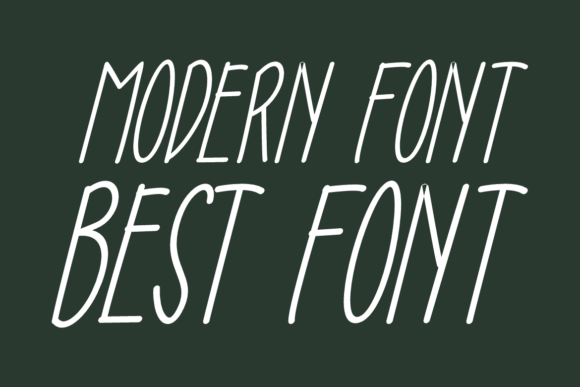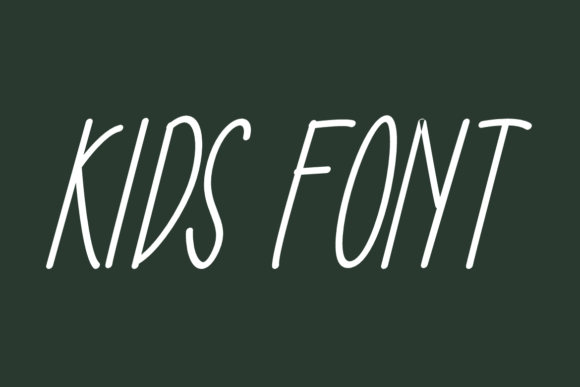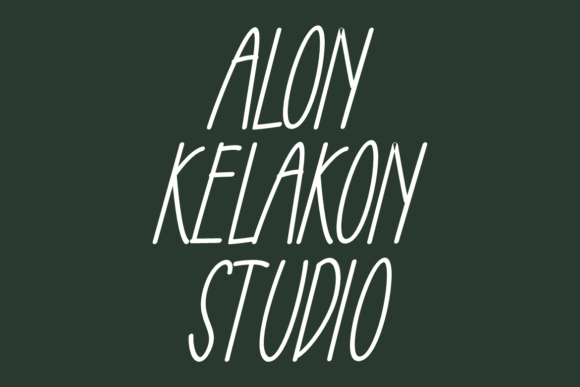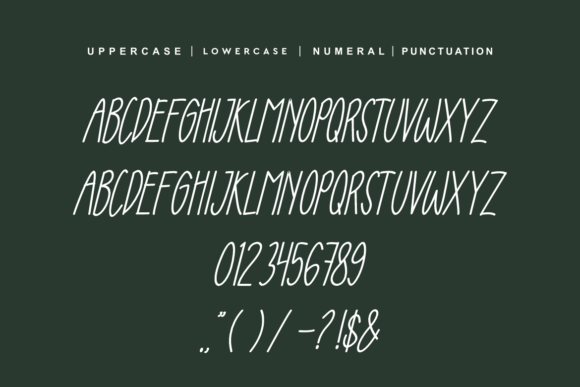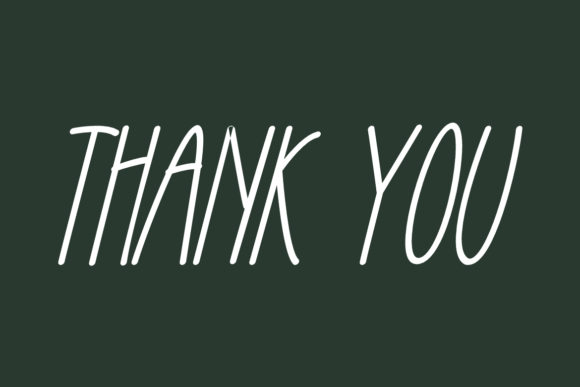
Betterfly Font: The Sweet and Friendly Handwritten Font for Your Creative Projects
Are you tired of using the same old fonts for your designs? Look no further than Betterfly Font, a sweet and friendly handwritten font that’s perfect for adding a personal touch to your creative projects. With its natural and unique style, Betterfly Font is incredibly versatile and can be used for a wide range of designs, from invitations and greeting cards to logos and branding materials.
The Unique Characteristics of Betterfly Font
Betterfly Font is a handwritten font that’s designed to look like it was written with a pen or pencil. Its natural, fluid strokes and subtle imperfections give it a charming, homemade feel that’s perfect for creating designs that are warm, inviting, and engaging. The font’s unique style is characterized by its rounded letterforms, gentle curves, and friendly vibe, making it an excellent choice for designers and crafters who want to add a personal touch to their work.
The Benefits of Using Betterfly Font
So why choose Betterfly Font for your creative projects? Here are just a few benefits of using this amazing font:
- Versatility: Betterfly Font is incredibly versatile and can be used for a wide range of designs, from formal invitations to casual greeting cards, and from logos to branding materials.
- Uniqueness: Betterfly Font has a unique and distinctive style that’s sure to set your designs apart from the crowd.
- Friendliness: The font’s friendly, approachable vibe makes it perfect for creating designs that are warm, inviting, and engaging.
How to Use Betterfly Font in Your Designs
Using Betterfly Font in your designs is easy. Here are a few tips to get you started:
- Choose the right size: Betterfly Font looks best when used at a size between 10 and 24 points. Experiment with different sizes to find the one that works best for your design.
- Pair it with other fonts: Betterfly Font pairs well with other fonts, such as sans-serif fonts like Arial or Helvetica. Experiment with different font combinations to find the one that works best for your design.
- Add some color: Betterfly Font looks great in a variety of colors, from bright and bold to soft and pastel. Experiment with different colors to find the one that works best for your design.
Betterfly Font in the World of Design
Betterfly Font is not just a font, it’s a design tool that can help you create amazing designs. Whether you’re a professional designer or a crafter, Betterfly Font can help you add a personal touch to your work. Here are a few examples of how Betterfly Font can be used in different design projects:
- Invitations: Betterfly Font is perfect for creating formal and informal invitations, from wedding invitations to birthday party invitations.
- Greeting cards: Betterfly Font is great for creating greeting cards, from Christmas cards to thank-you cards.
- Logos and branding: Betterfly Font can be used to create unique and memorable logos and branding materials, from business cards to letterheads.
In conclusion, Betterfly Font is a sweet and friendly handwritten font that’s perfect for adding a personal touch to your creative projects. With its natural and unique style, Betterfly Font is incredibly versatile and can be used for a wide range of designs. Whether you’re a professional designer or a crafter, Betterfly Font is a great choice for anyone who wants to create amazing designs that are warm, inviting, and engaging.